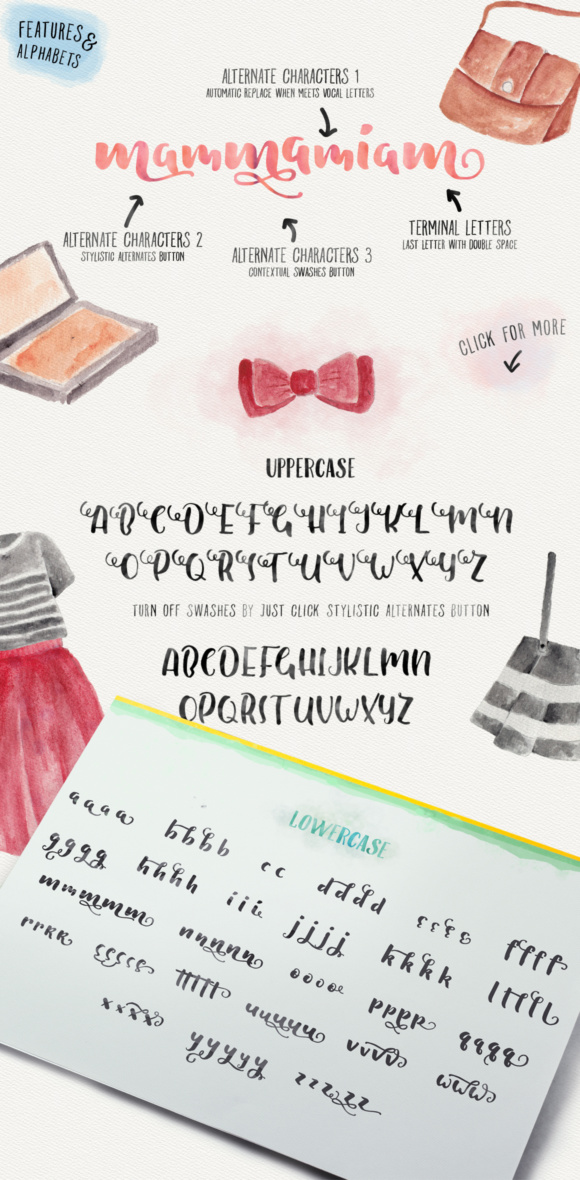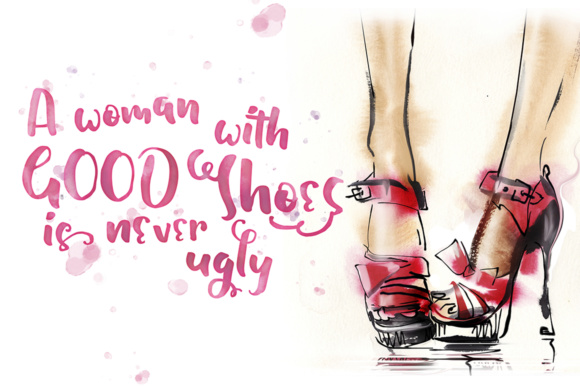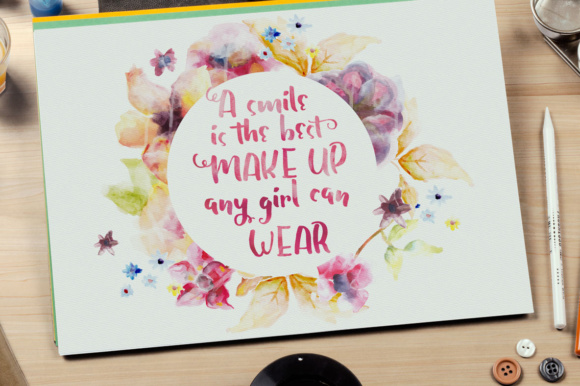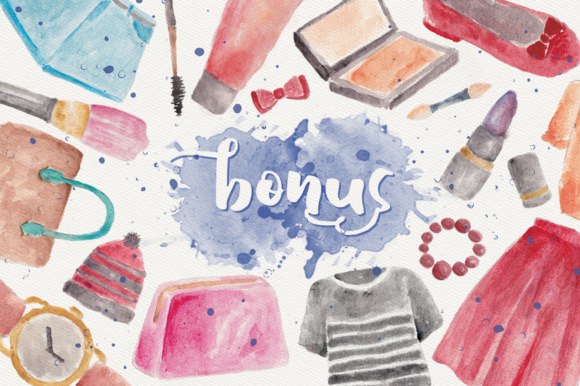
Shallom Font
About Shallom Font
Shallom is a gorgeous and fashionable script font, made with brush and ink. This font comes with alternate letters, as well as bonus files so you can start making gorgeous designs with no hassle.